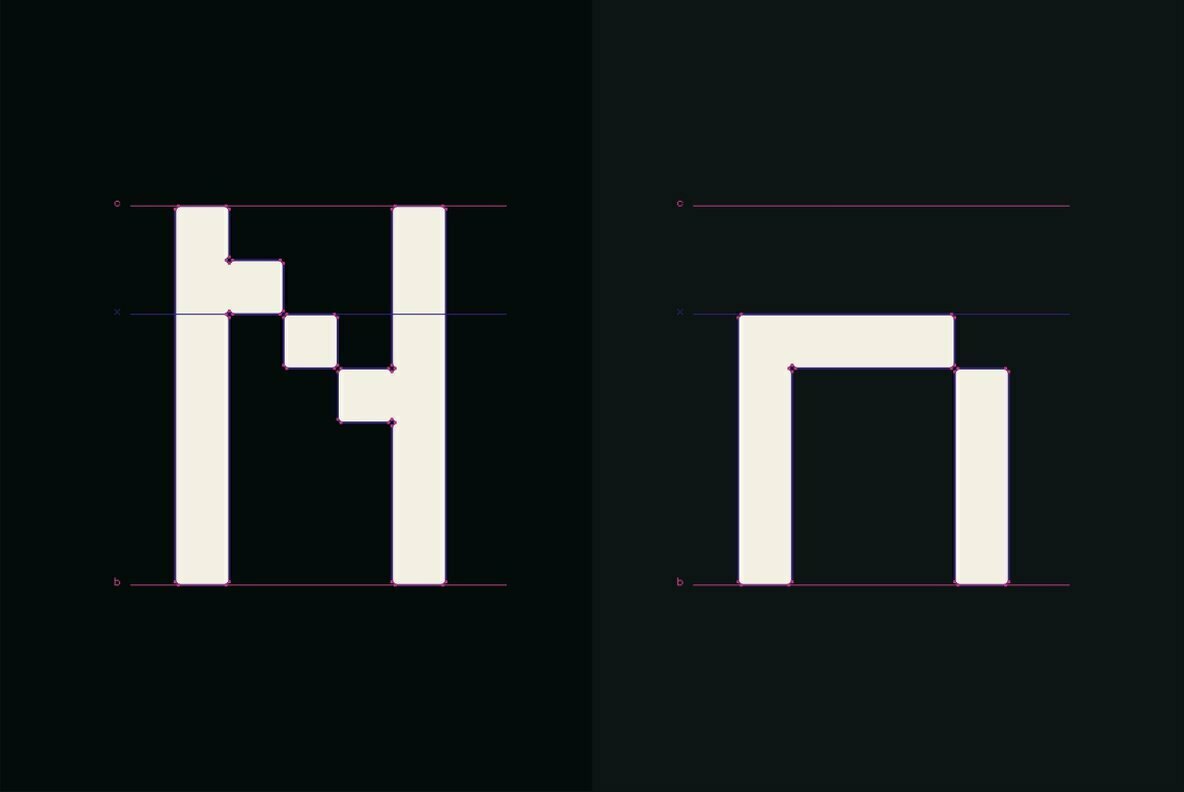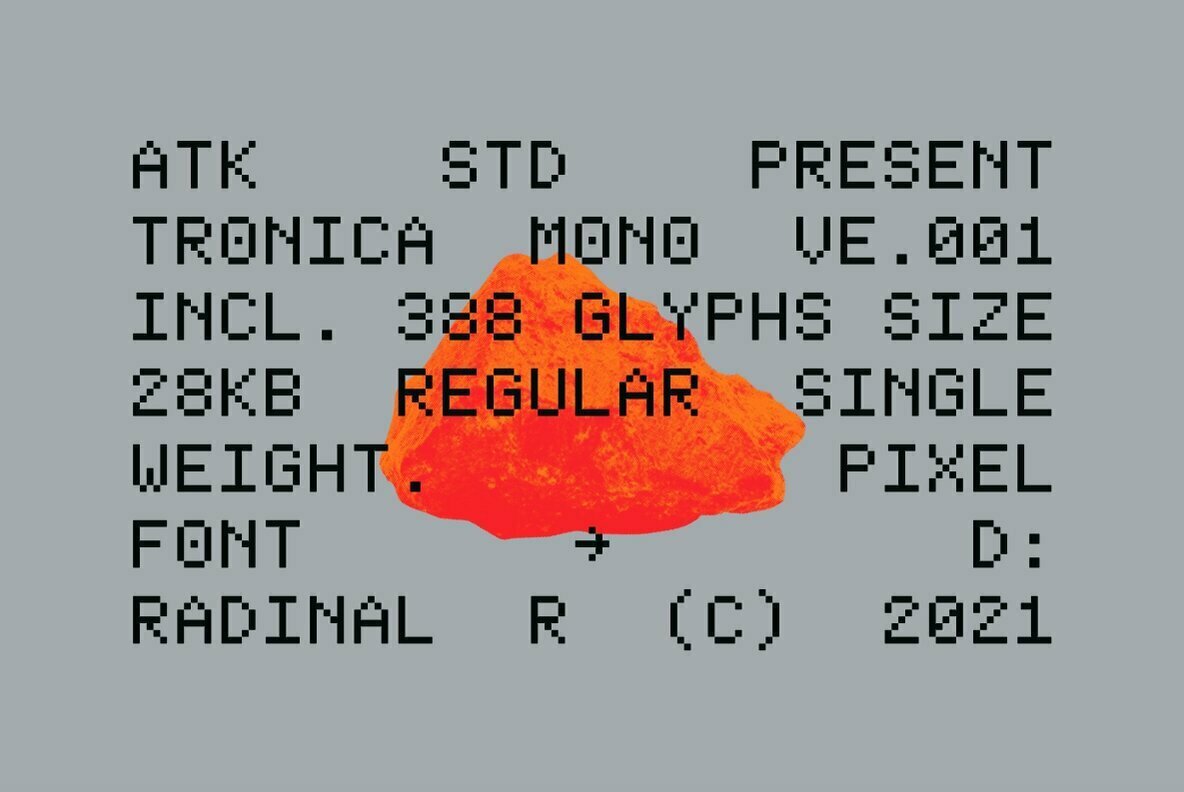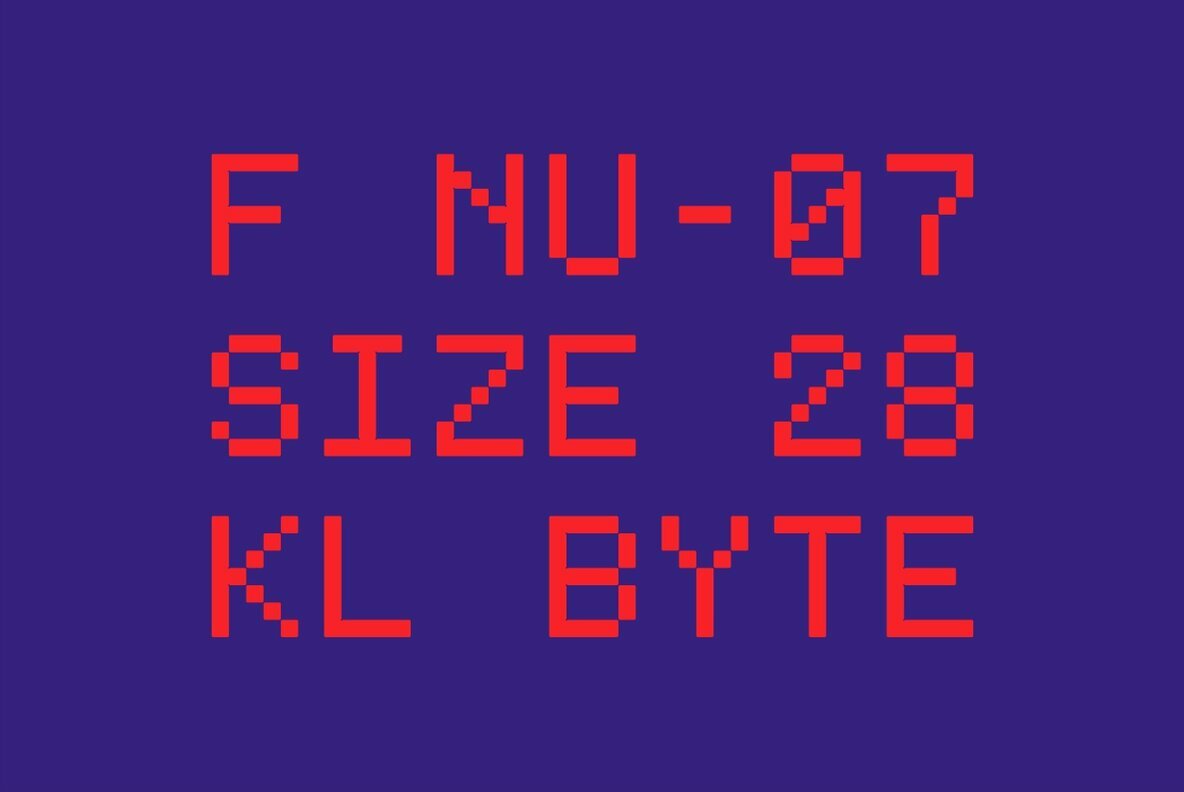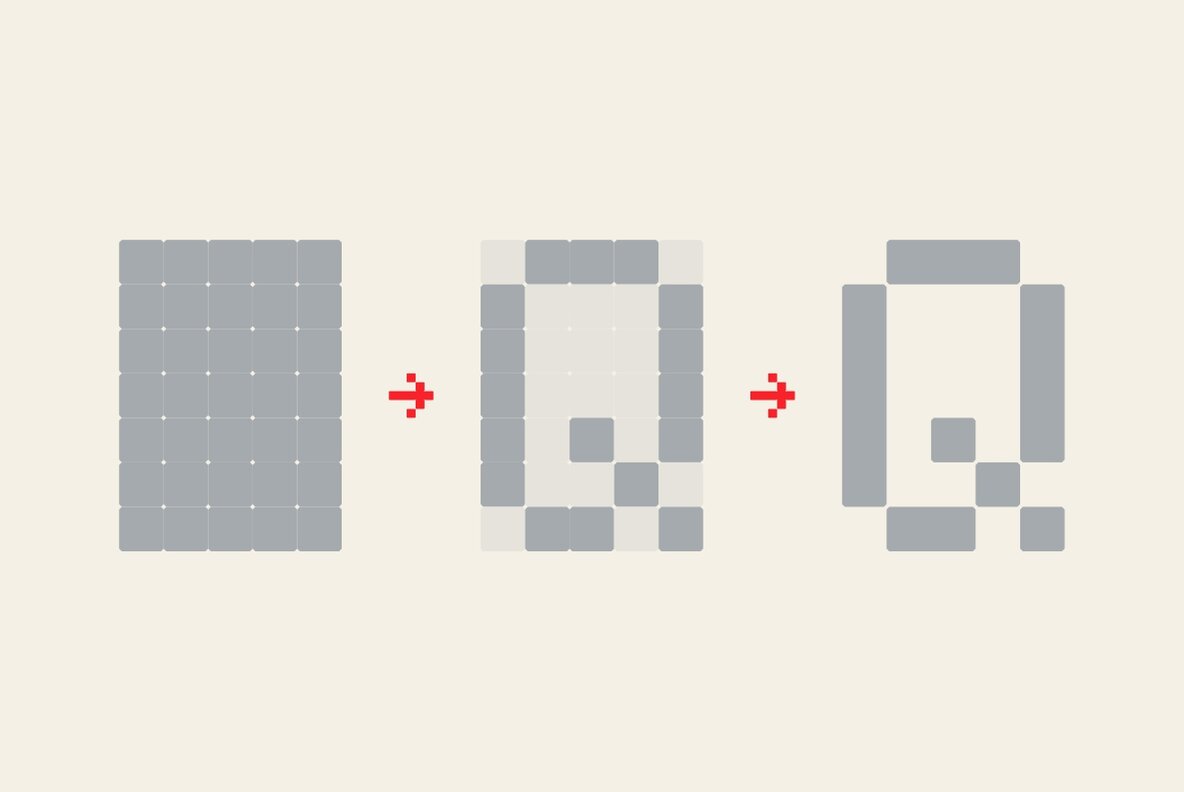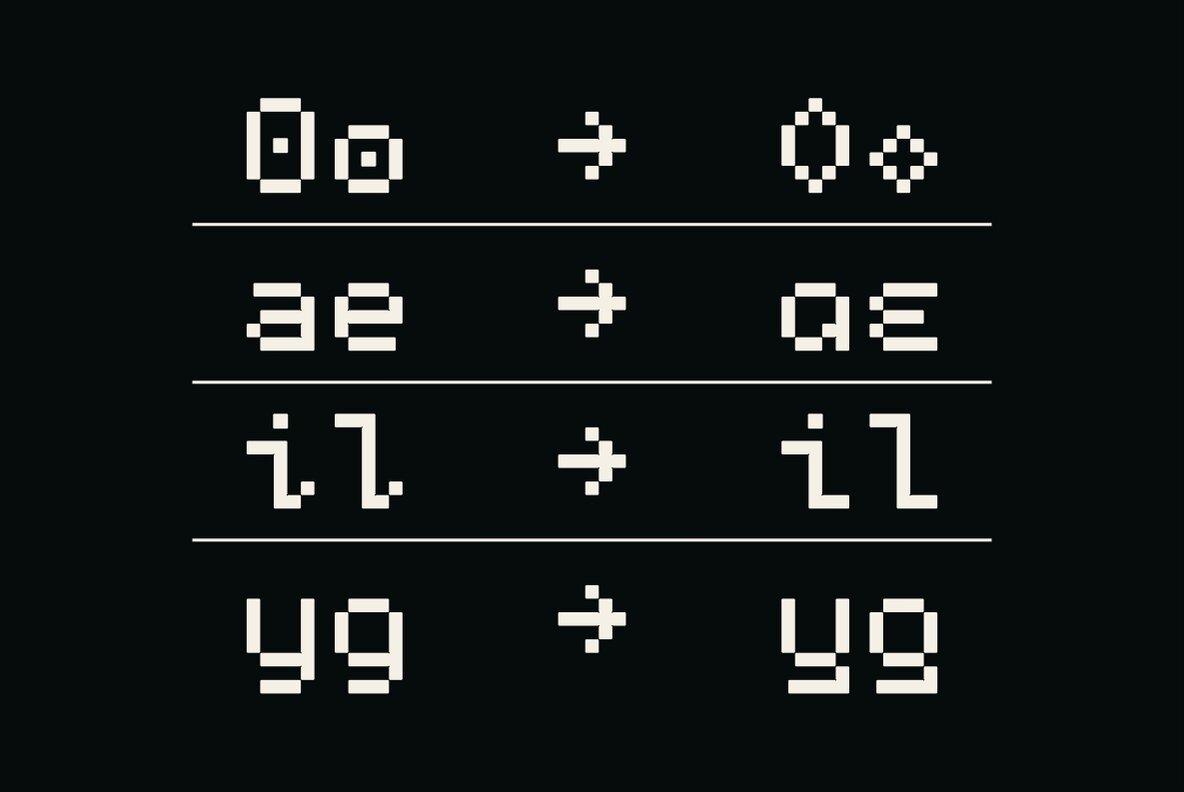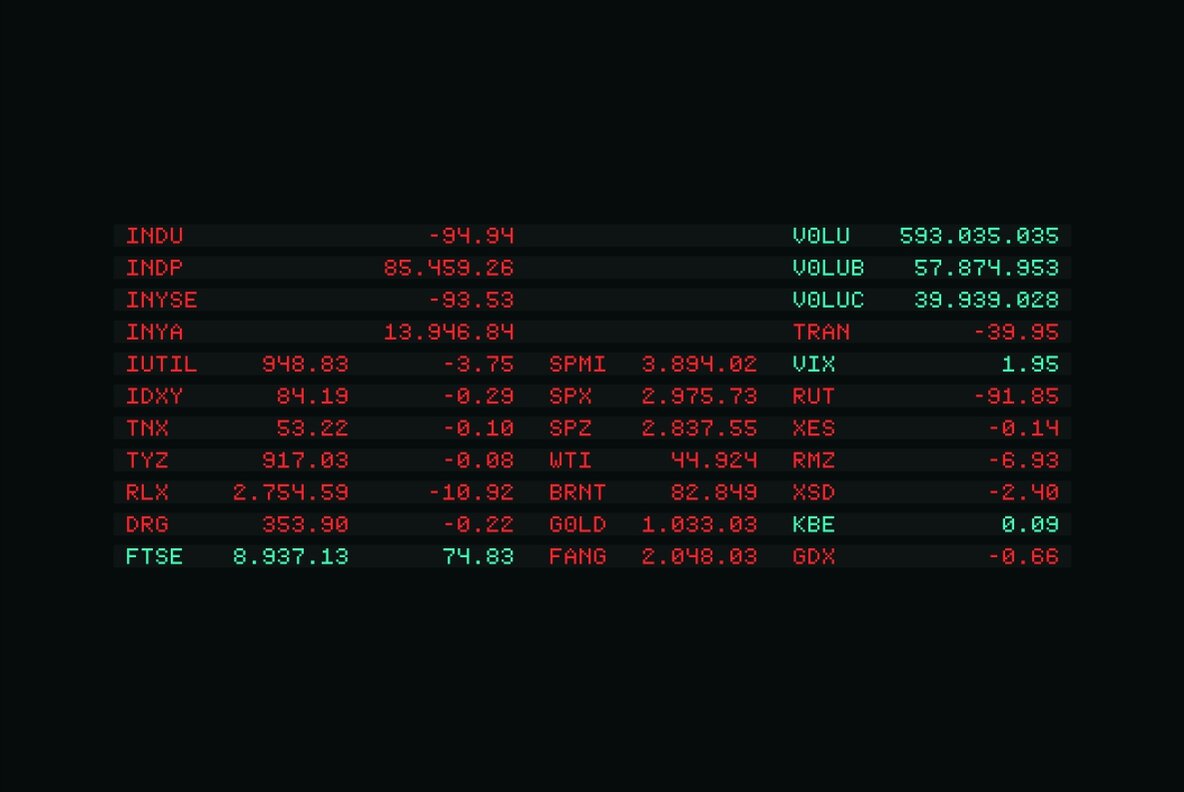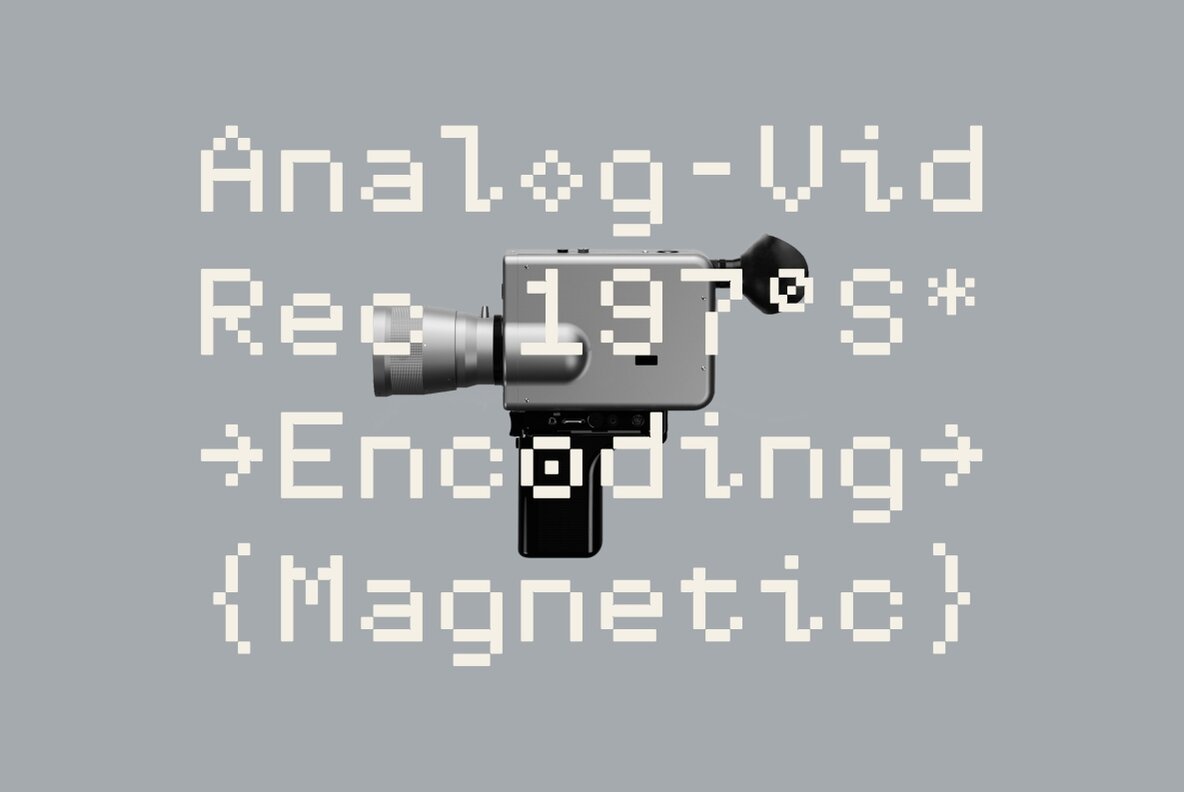
Tronica Mono Font
Tronica Mono Regular
Tronica Mono is a new stencil modular monospaced font designed with pixel taste and solid font style by Radinal Riki. Come in single weight, uppercase and lowercase with a character set that covers over 100 languages.